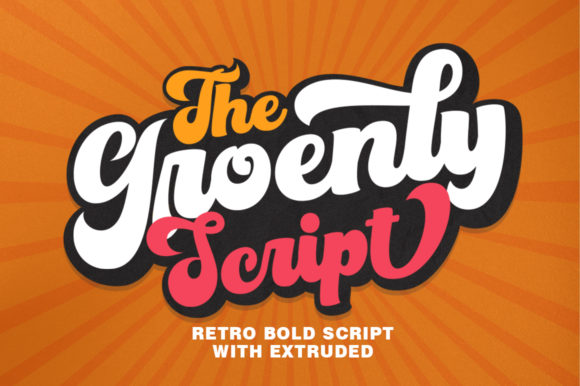
Introducing Groenly Script Font – A Journey Through Time, Captured in Every Stroke
Embark on a captivating voyage through the annals of calligraphy with Groenly Script Font, a masterpiece that seamlessly blends the charm of yesteryear with a contemporary twist. Its elegant curves and playful strokes evoke a sense of nostalgia, reminiscent of vintage love letters and cherished memories.
With Groenly Script, your designs transcend the ordinary, becoming timeless works of art. Its versatility spans a myriad of creative endeavors, from wedding invitations that exude romance to captivating branding that leaves a lasting impression. Let your imagination soar as you explore the endless possibilities that await you with this exquisite font.
Step into a world where elegance and creativity dance together harmoniously. Groenly Script invites you to craft designs that speak volumes, effortlessly capturing the essence of love, joy, and heartfelt emotions. Its retro edge adds a touch of whimsy, transporting you back to an era of heartfelt connections and enduring charm.
Indulge in the artistic allure of Groenly Script, a font that breathes life into your words. Its smooth flow and graceful lines create a visually stunning spectacle, captivating your audience with every stroke. Experience the sheer delight of crafting designs that resonate with your soul, leaving an imprint on hearts and minds alike.